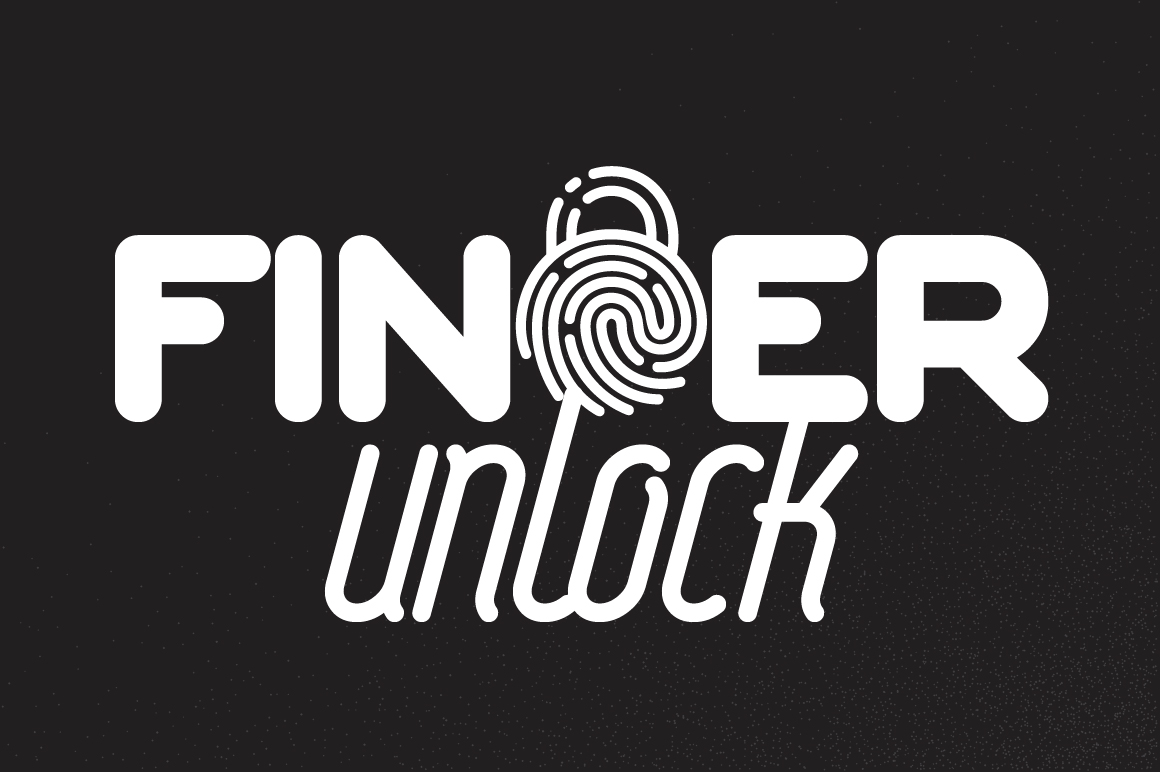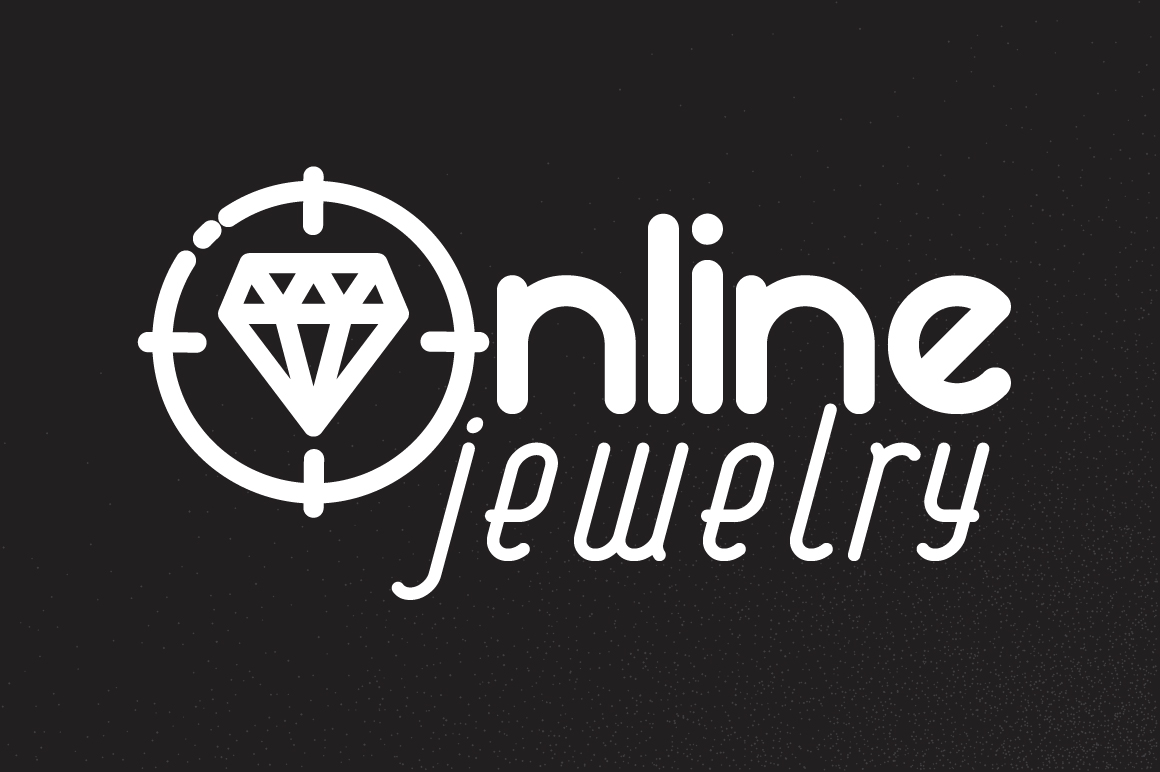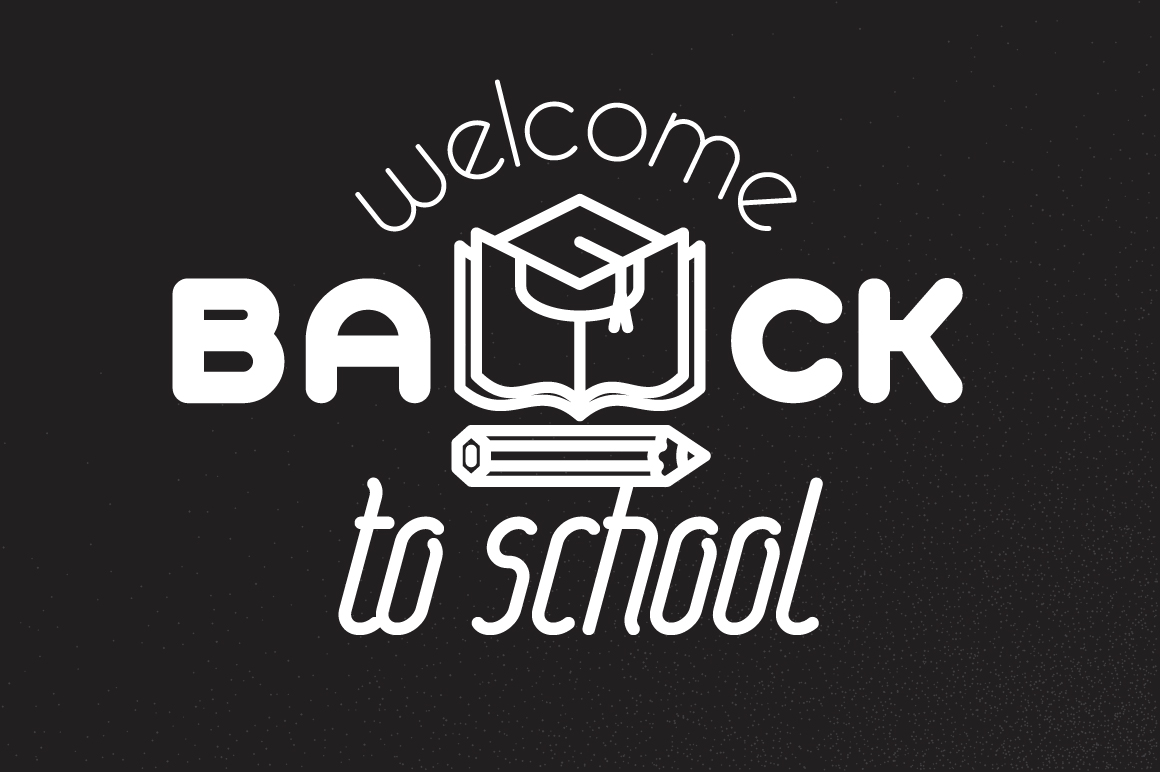
Introduction to Round Compound Font
Have you ever been stuck on a design project, struggling to find the perfect font to bring your creative vision to life? It’s a frustrating moment we’ve all been through, but what if I told you there’s a game-changing resource that could make all the difference? Enter the Round Compound Font, a dynamic duo of Nround & Font & Furious that’s set to revolutionize your design process.
As a valuable design resource, the Round Compound Font offers a high-quality solution for designers looking to elevate their creative projects. With its unique, rounded aesthetic and transparent background, this font is perfect for adding a touch of sophistication and whimsy to your designs.
Round Compound Font: Key Features
- High-quality design resource suitable for various creative projects
- Features a transparent background, making it easy to integrate into different design elements
- Unique characteristic: The font’s rounded shapes and compound design elements create a visually appealing and modern aesthetic
- Perfect for designers looking for a high-quality, free design resource to enhance their creative projects
Honest Review: Round Compound Font
As a designer, I’m always on the lookout for high-quality design resources to elevate my creative projects. The Round Compound Font has caught my attention with its unique and modern style. ✨
The font features a beautiful combination of rounded shapes and geometric elements, making it perfect for branding, packaging, and digital design. I appreciate that it’s available for free download, which is a huge plus for designers on a budget.
Here are some of the font’s notable features:
- High-quality design with transparent background
- Perfect for creative projects requiring a modern and sleek look
However, I do have some reservations about the font’s limited character set. ⚠️ It’s not ideal for extensive text-based projects, but it’s perfect for logos, icons, and short text snippets.
Overall, I’m impressed with the Round Compound Font’s unique style and versatility. While it has some limitations, it’s a valuable addition to any designer’s toolkit. With its high-quality design and free download, it’s definitely worth exploring for your next creative project.
Round Compound Font
The Round Compound Font is a high-quality design resource ideal for creative projects. This font features a unique blend of rounded shapes and compound forms, making it perfect for adding a touch of sophistication to your designs.
Tips for Getting the Most Out of the Round Compound Font
To get the most out of the Round Compound Font, experiment with different font sizes, styles, and combinations. You can also use it in conjunction with other design elements, such as shapes and icons, to create a visually appealing design.
The Round Compound Font is ideal for a variety of creative projects, including:
Graphic design
Logo design
Digital artwork
Infographics